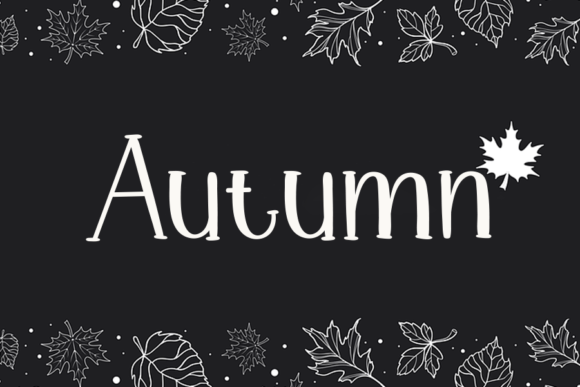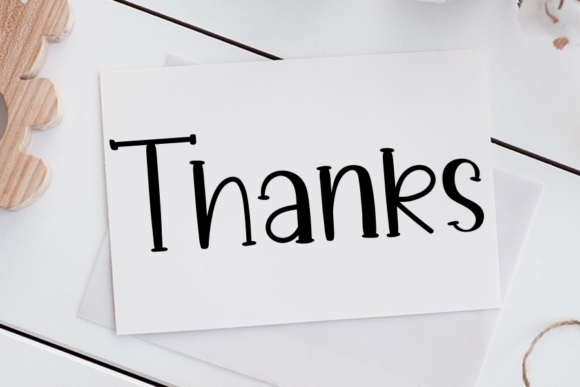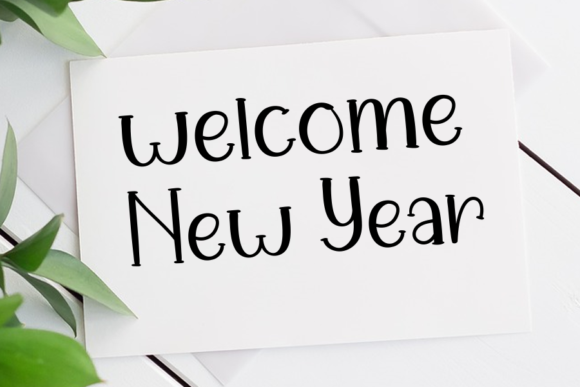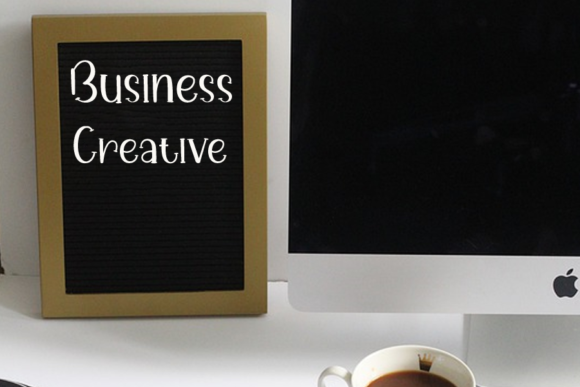
Winter Signature Font
About Winter Signature Font
Winter Signature is a cute and trendy handwritten font. Its natural and unique style makes it incredibly fitting to a large pool of designs. The only limit is your imagination!